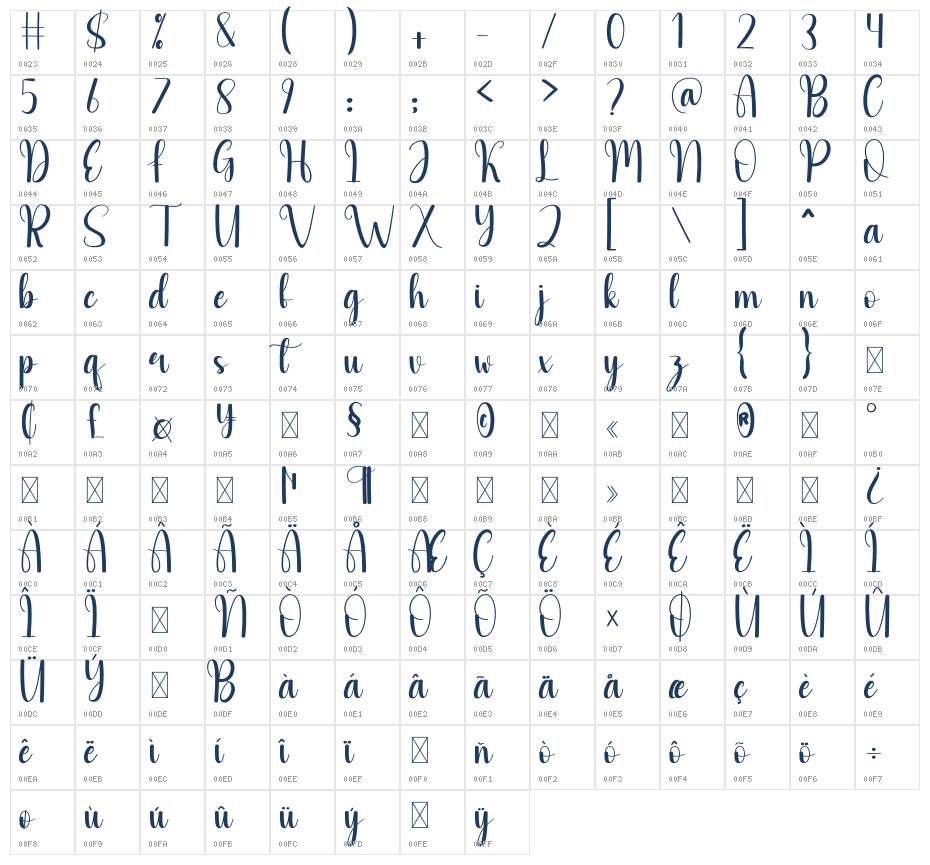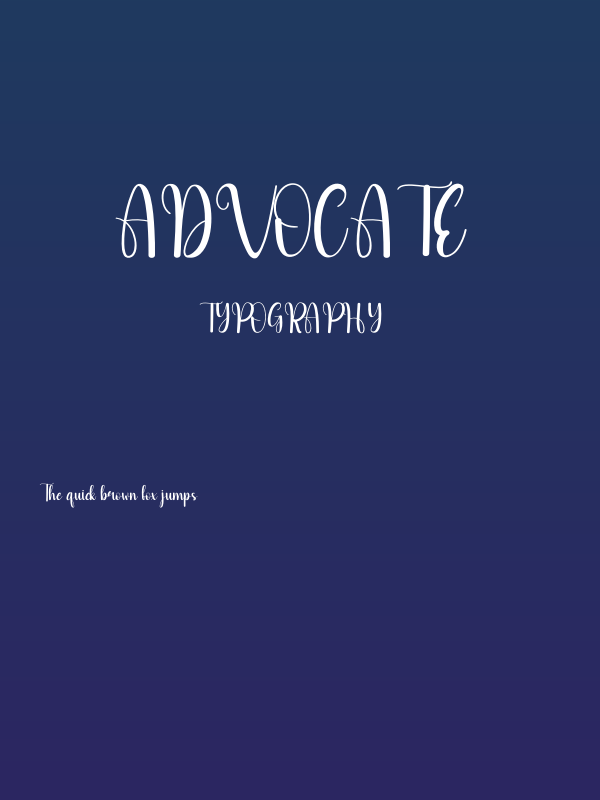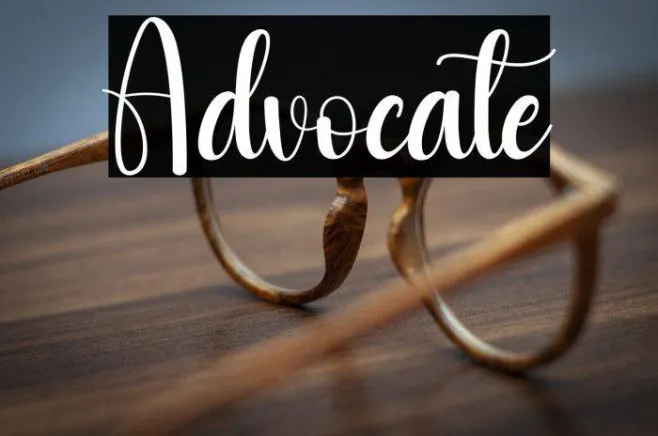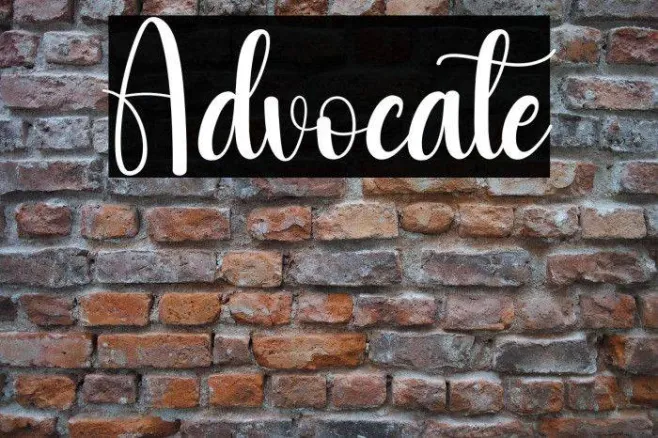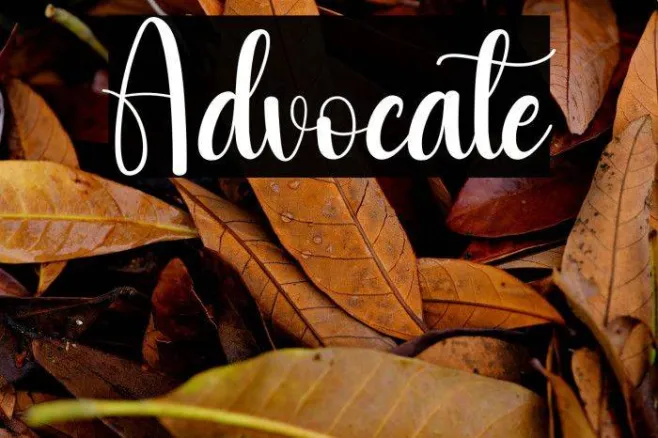
Advocate Font
Advocate Description
A decorative, cursive script font with elegant, flowing lines and varying stroke widths, featuring playful loops and swashes.
| Overall Style | Elegant, Playful, Handwritten |
| Use Case | Invitations, branding, logos, social media |